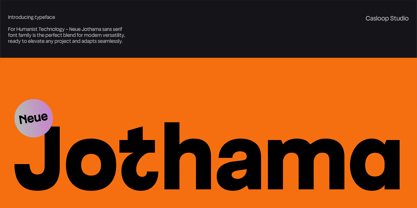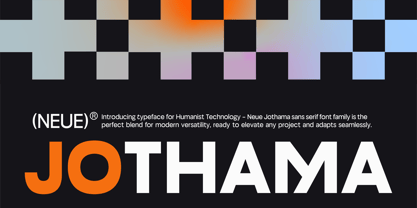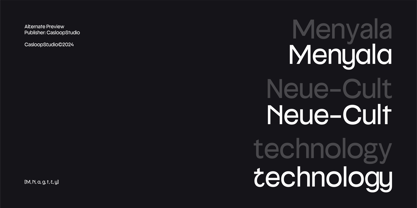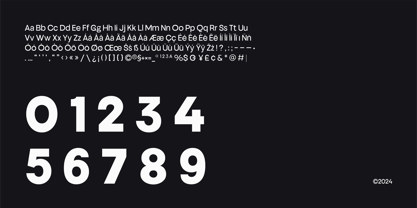
Neue Jothama is a geometric sans-serif typeface that harmoniously blends humanist and neo-grotesque elements, making it the perfect choice for any professional design need. Its contemporary and sleek design, coupled with distinctive uppercase characters and a large x-height, ensures that your text stands out with clarity and impact. This premium font family boasts a wide range of weights, from thin to bold, in both upright and oblique styles. Its minimalist and expressive forms are designed to be highly legible, even at small sizes, making it an ideal choice for corporate branding, packaging, websites, and digital media visuals.
Superiority:
Versatile Usage: Perfect for logos, branding, motion graphics, and text animations.
Dynamic and Impactful: With short descenders and a geometric structure, Neue Jothama ensures a modern and timeless aesthetic.
Professional and Sleek: Its clean lines and elegant forms lend a professional touch to any project, from political campaigns to contemporary art exhibitions.
Features :
Uppercase & Lowercase
Numbers and Punctuation
Ligatures & Alternate Characters
Multilingual
Neue Jothama